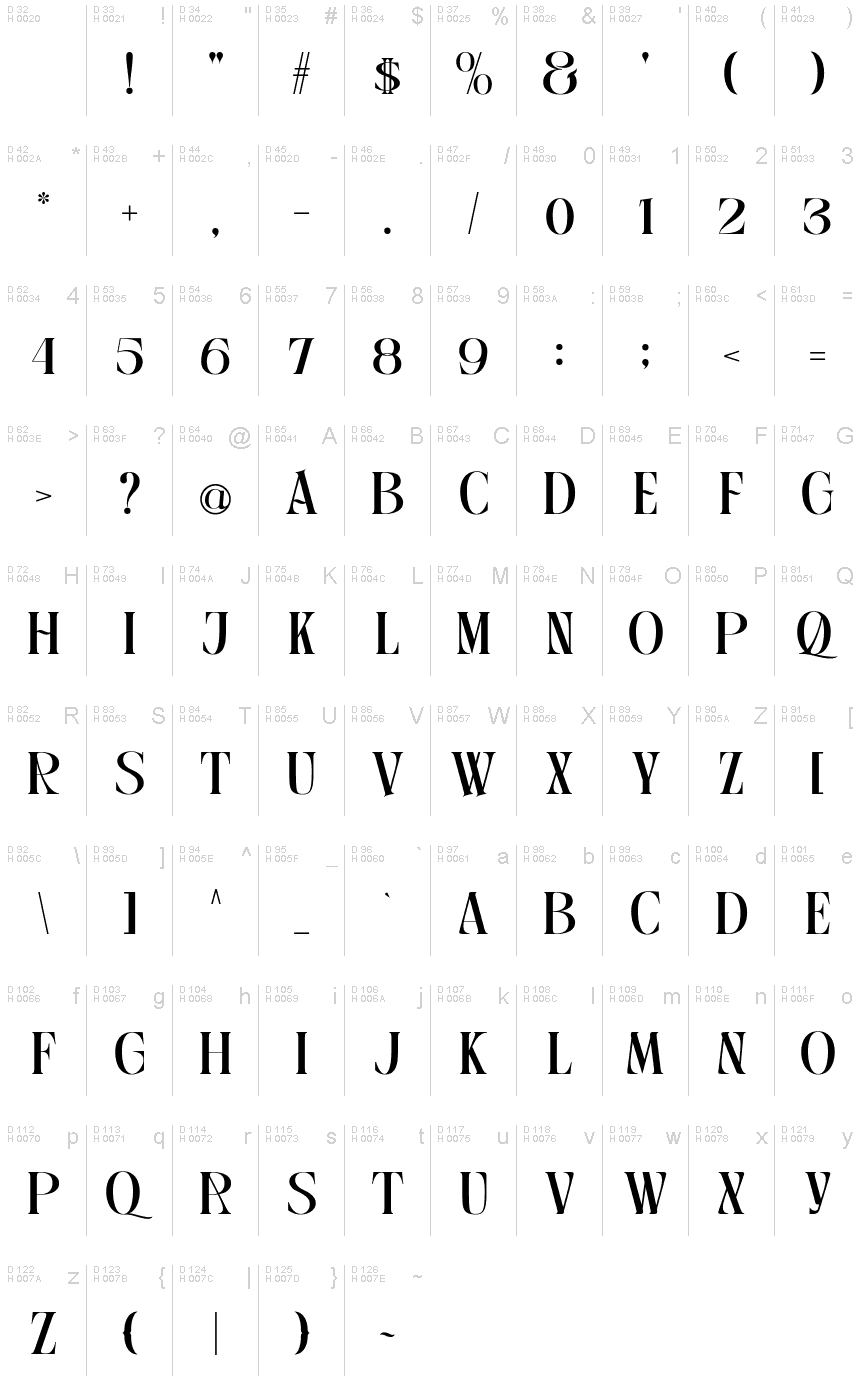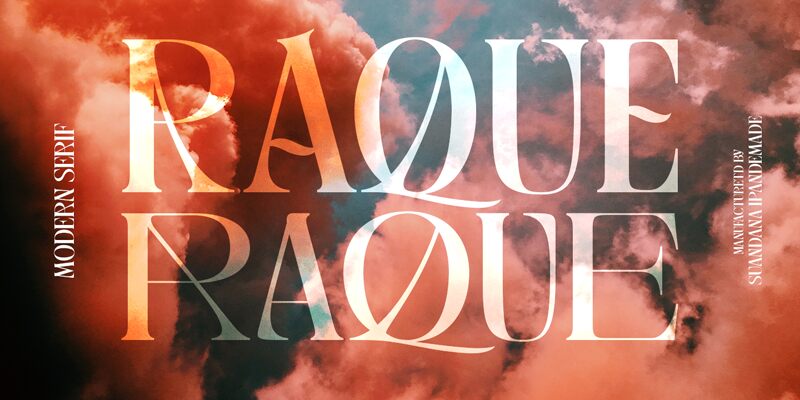
Raque Demo Regular
Raque, the condensed vintage font designed by madeDeduk, is the perfect typeface for any project that requires a touch of nostalgia and elegance. Its narrow width and bold strokes make it ideal for titles, headlines, and branding projects that require a unique retro feel. Use Raque to create stunning posters or ads reminiscent of a bygone era or add a touch of sophistication to your website or blog titles. This semi-bold font will elevate your designs to new heights and is suitable for anything from fashion editorials to food blogs. Try Raque today and let its vintage charm captivate your audience!